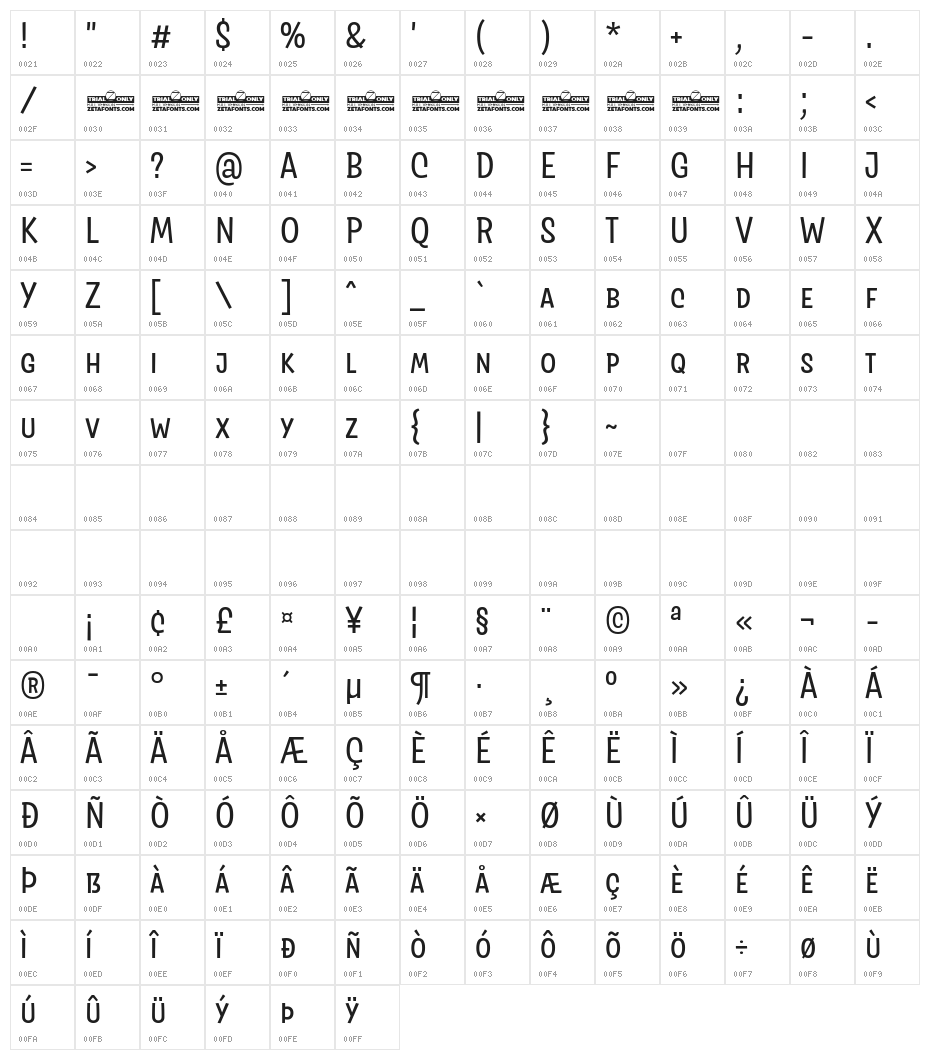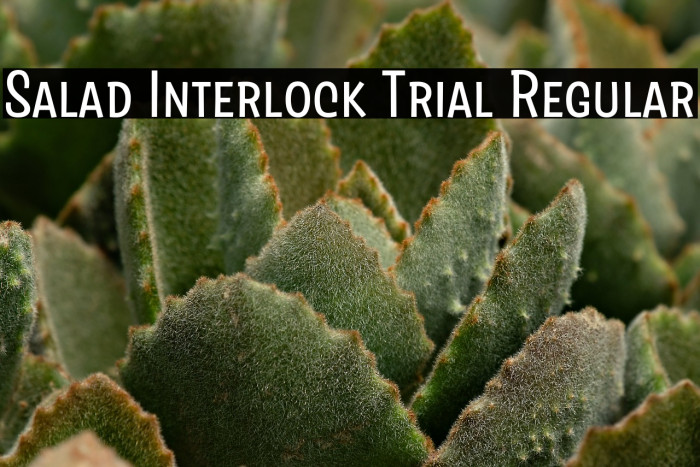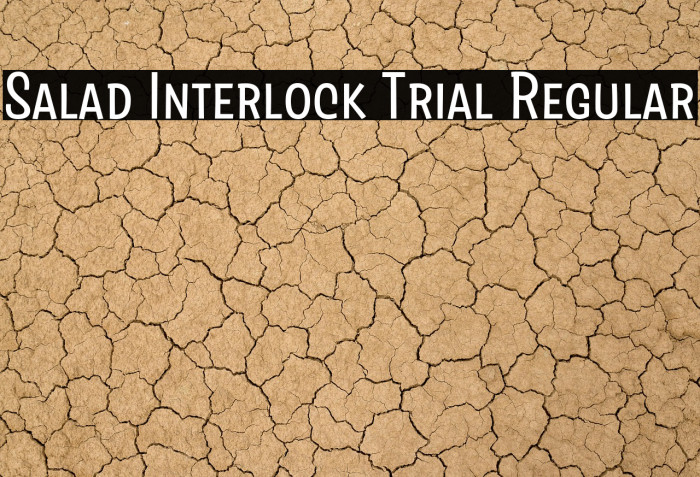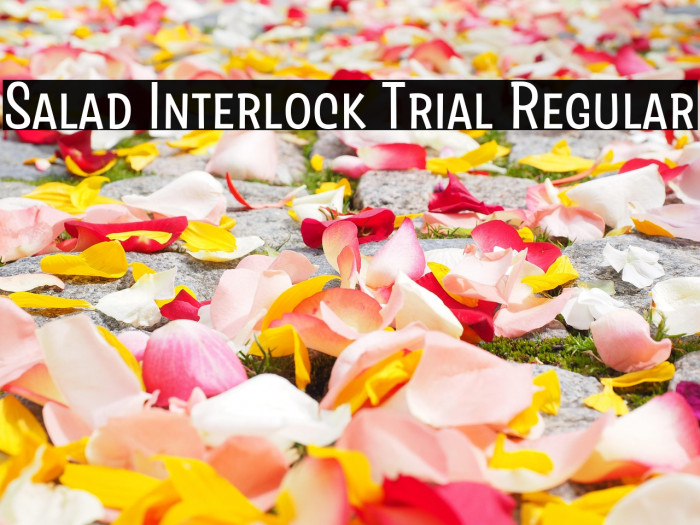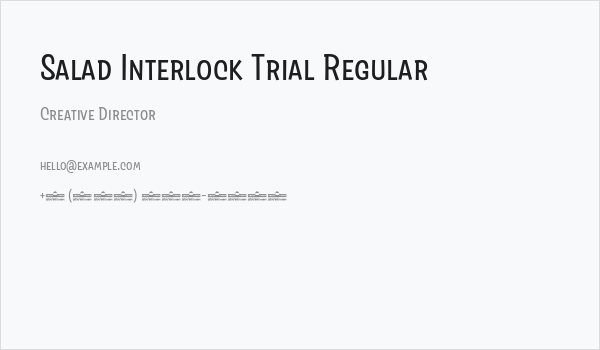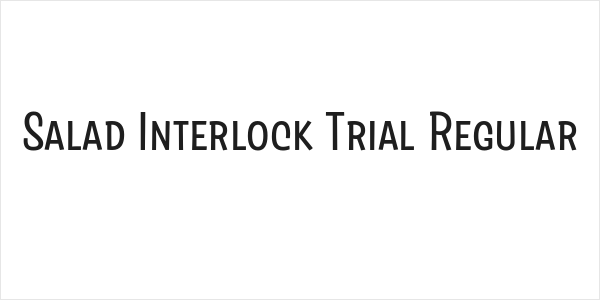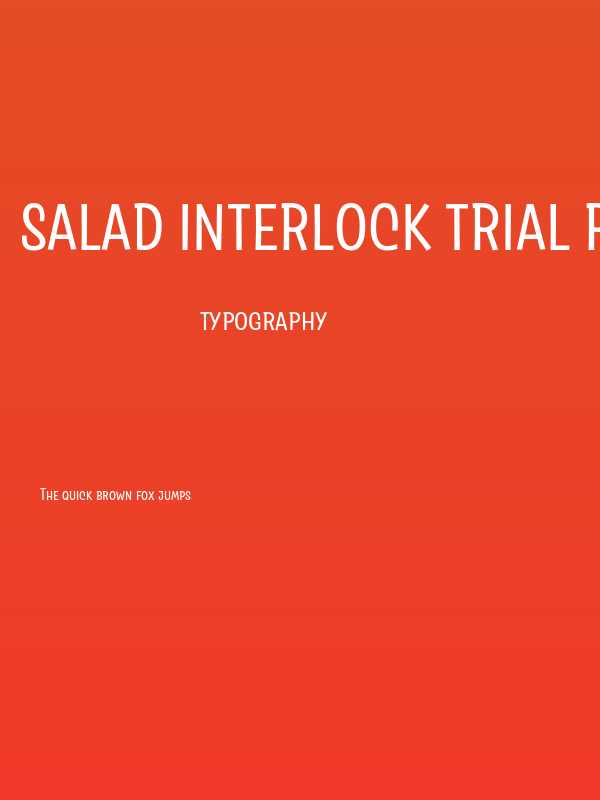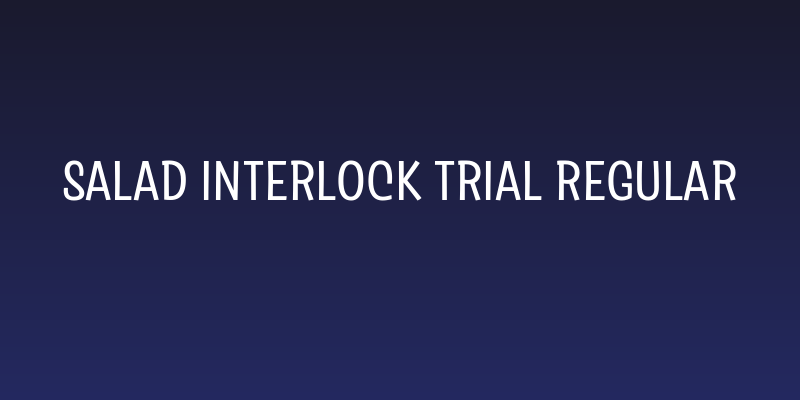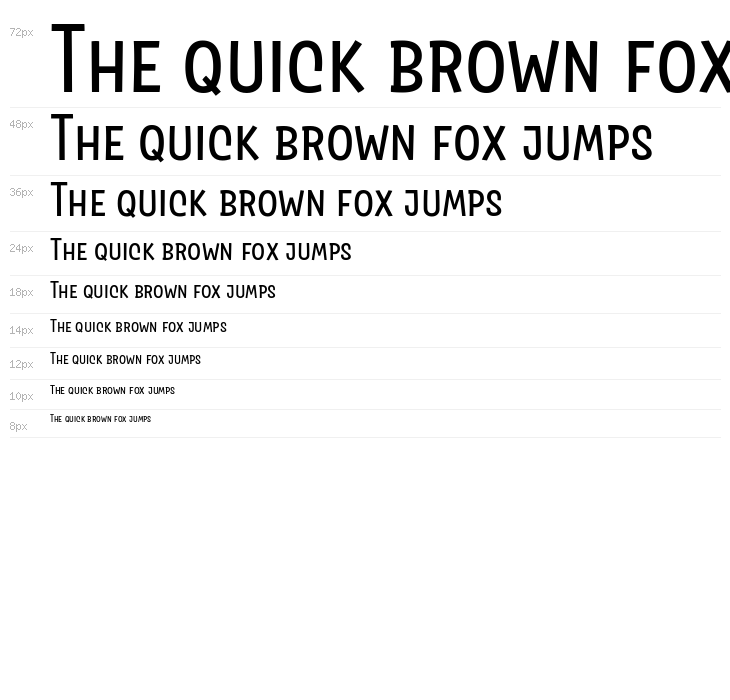
Salad Interlock Trial Regular Font
Salad Interlock Trial Regular Description
This font features a clean and modern design with a slight geometric influence. The characters are bold and slightly condensed, offering a strong presence while maintaining readability. The uppercase letters are uniform in height, providing a consistent and structured appearance. The lowercase letters are slightly smaller, with a subtle curvature that adds a touch of softness to the overall design. The numerals are clear and straightforward, matching the style of the alphabet. Special characters are included, maintaining the same bold and clean aesthetic. This font is versatile, suitable for various design projects that require a modern and impactful look.
| Proposed Projects | Ideal for branding, advertising, headlines, and digital media projects. |